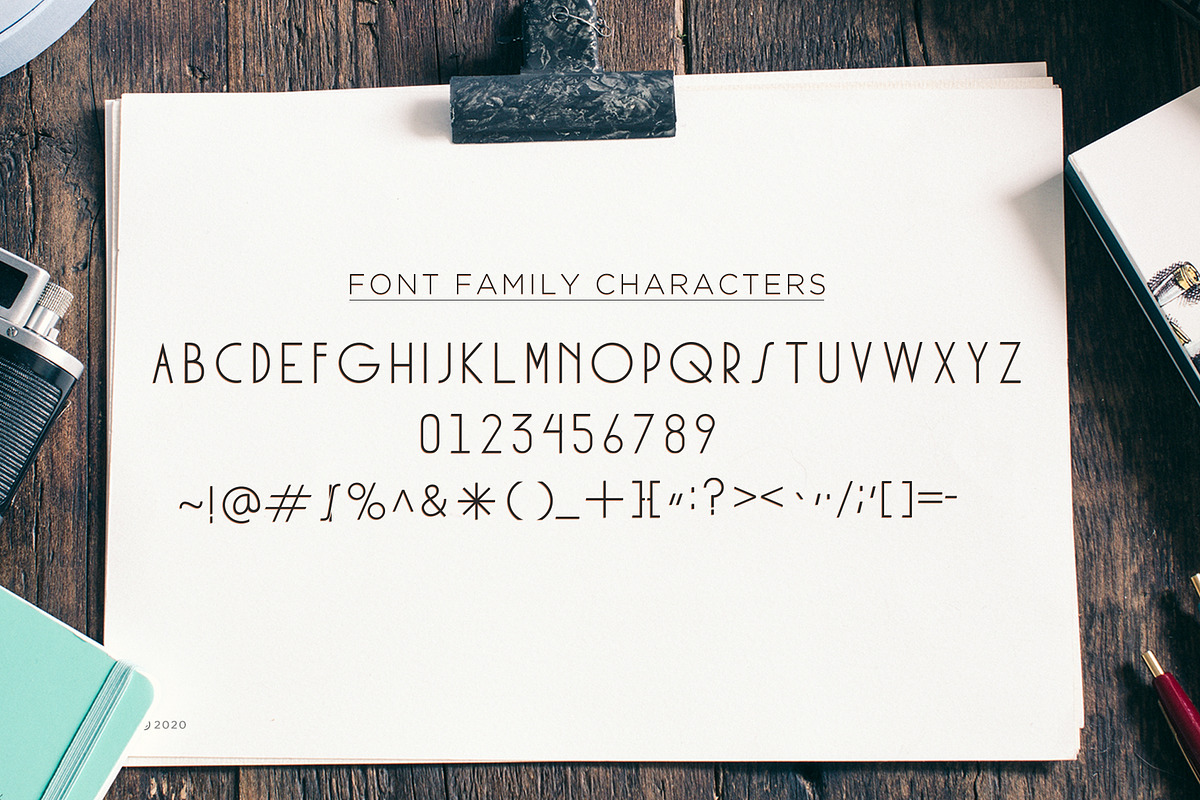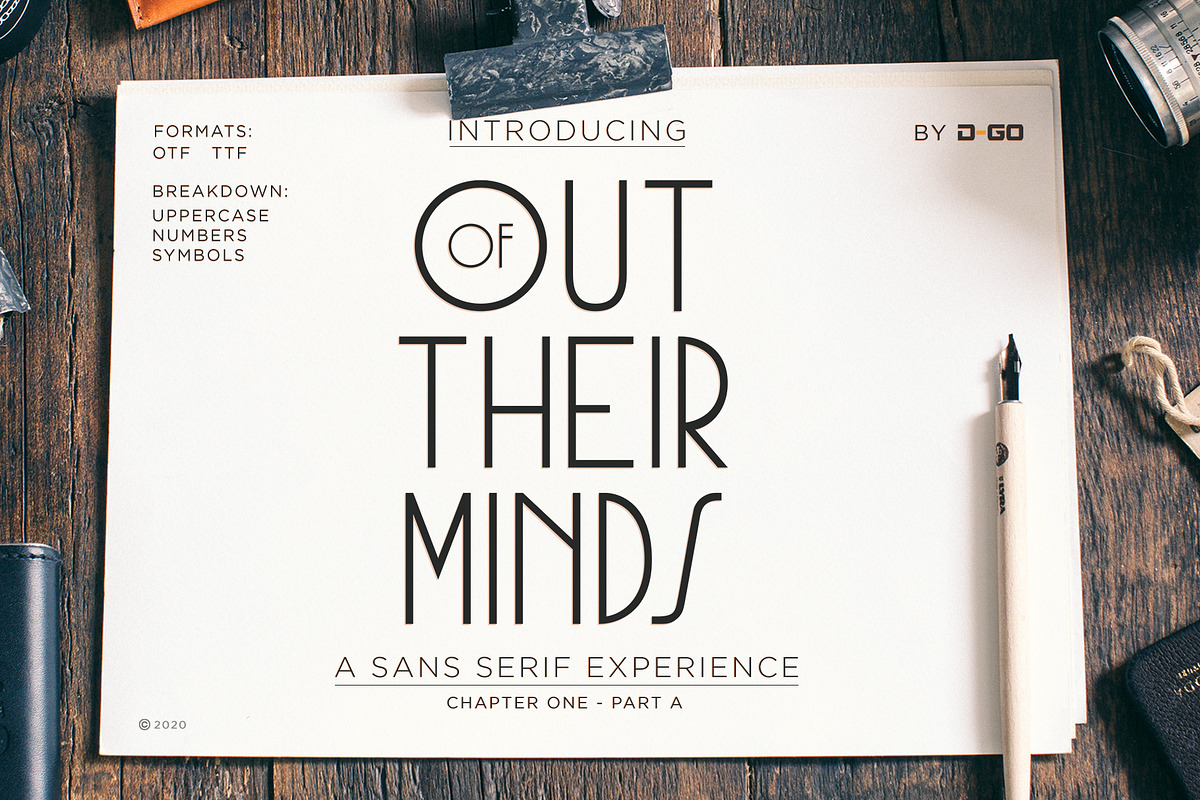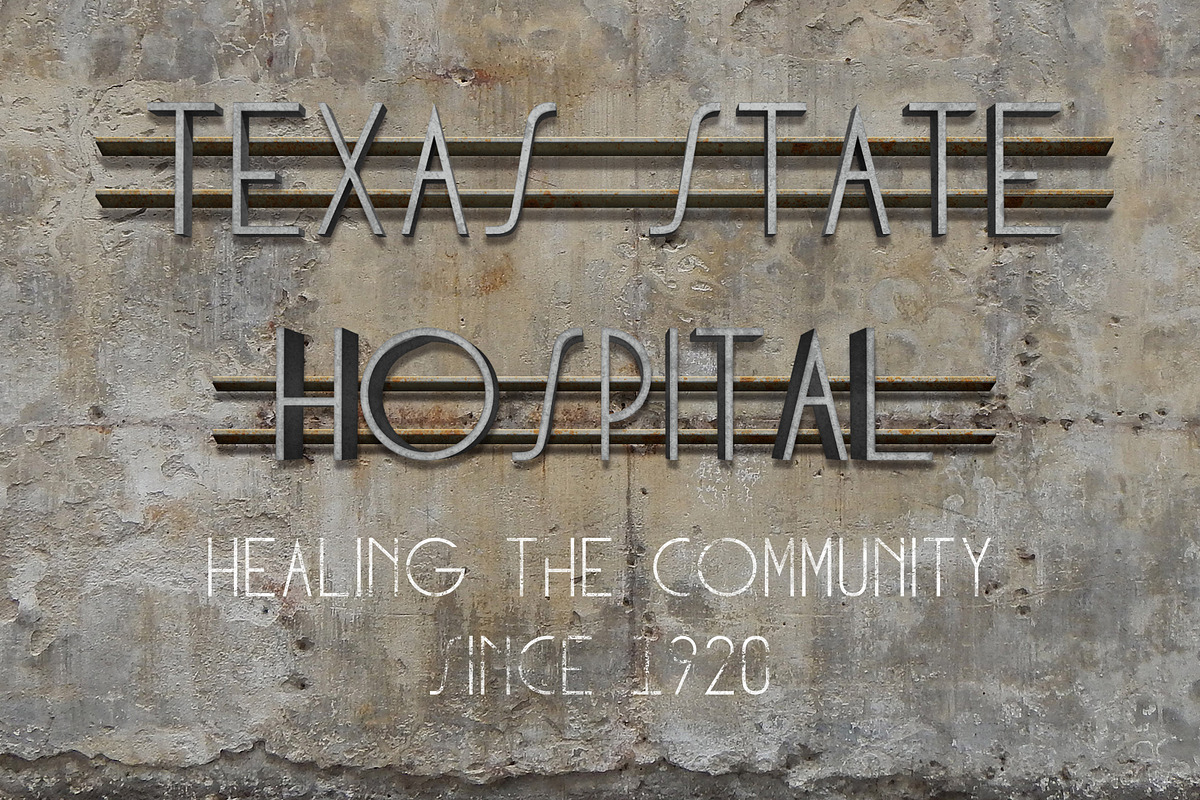
Out of Their Minds
A Serif inspired by 1920-1930 Hospitals. This is a Thin, Regular font that features Numbers and Symbols. Available in OTF and TTF Formats.